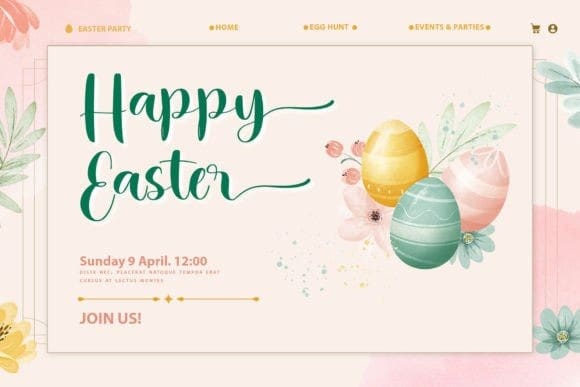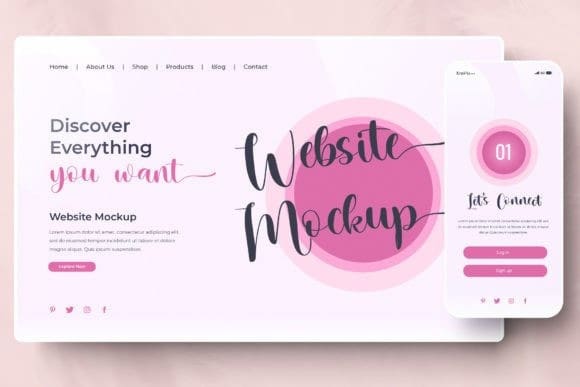
Charming Stylish Font
Charming Stylish Font a captivating script font exuding elegance and sophistication. Its fluid strokes and impeccable letterforms emulate a personal touch, perfect for branding, invitations, logos, and projects requiring a classy flair. Elevate your designs with the timeless beauty of “CharmingStylish” and leave a lasting impression.